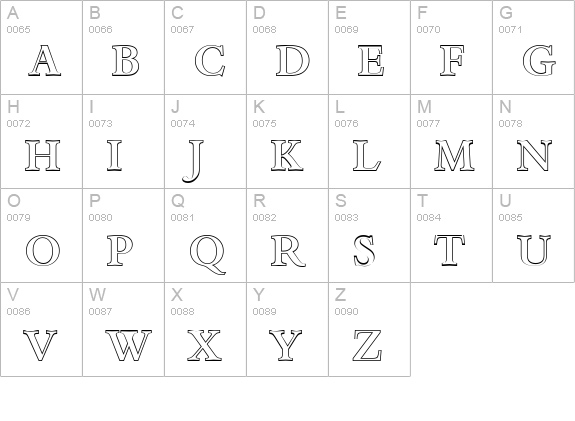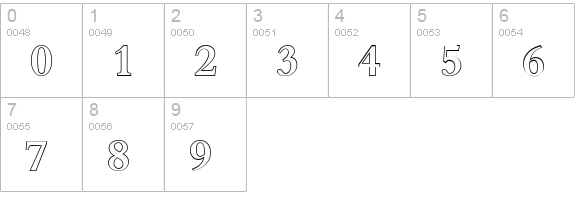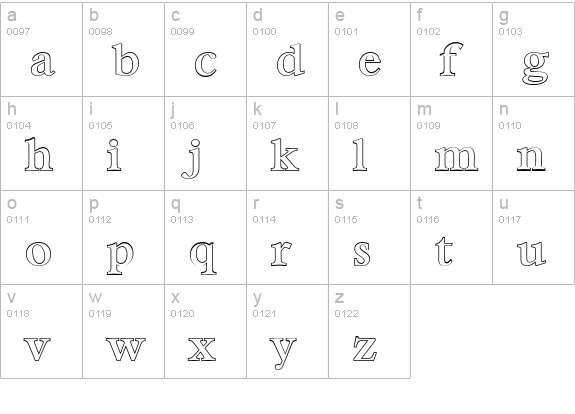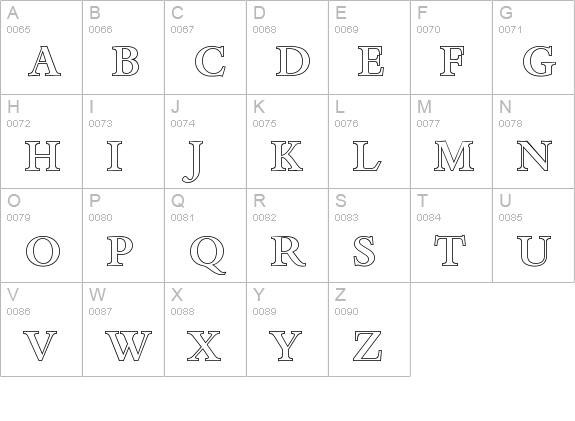
BernsteinOutline-Medium-Regular Font Details
BernsteinOutline-Medium-Regular is a balanced, medium-weight variant in the BernsteinOutline typeface family \xE2\x80\x94 well suited to sub-headlines, navigation, and balanced editorial work.
BernsteinOutline-Medium-Regular is a versatile and modern font that exudes elegance and sophistication. Its clean lines and stylish appearance make it perfect for a wide range of design projects, from branding to packaging to web design. This font strikes the perfect balance between being eye-catching and easy to read, making it a popular choice among designers and creatives. The free version of BernsteinOutline-Medium-Regular is available to download at FontsMarket.com, allowing you to access this high-quality font without any cost. With its timeless appeal and professional look, BernsteinOutline-Medium-Regular is sure to elevate your projects and add a touch of class to your designs. Download it today and see how this font can enhance your creative work.